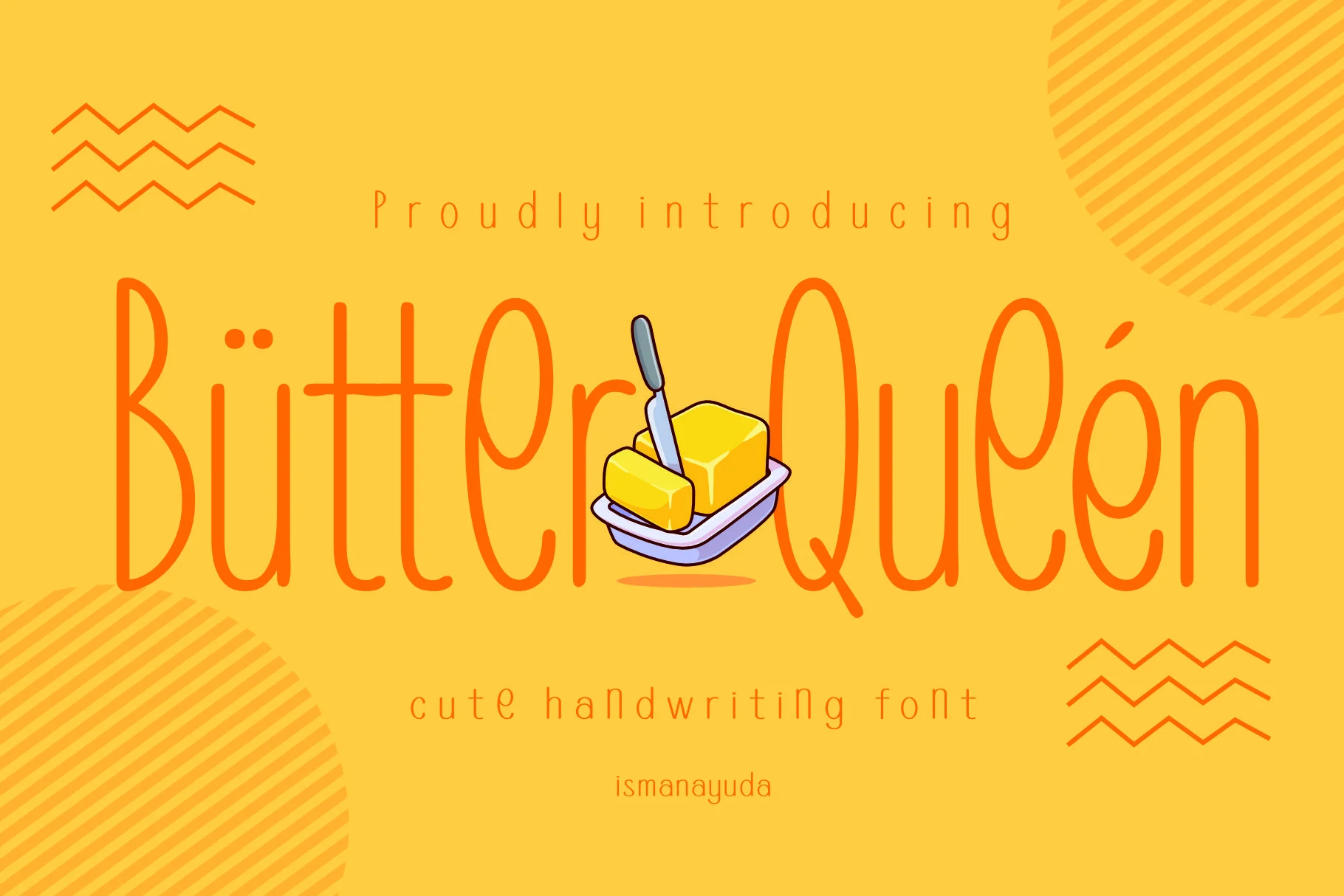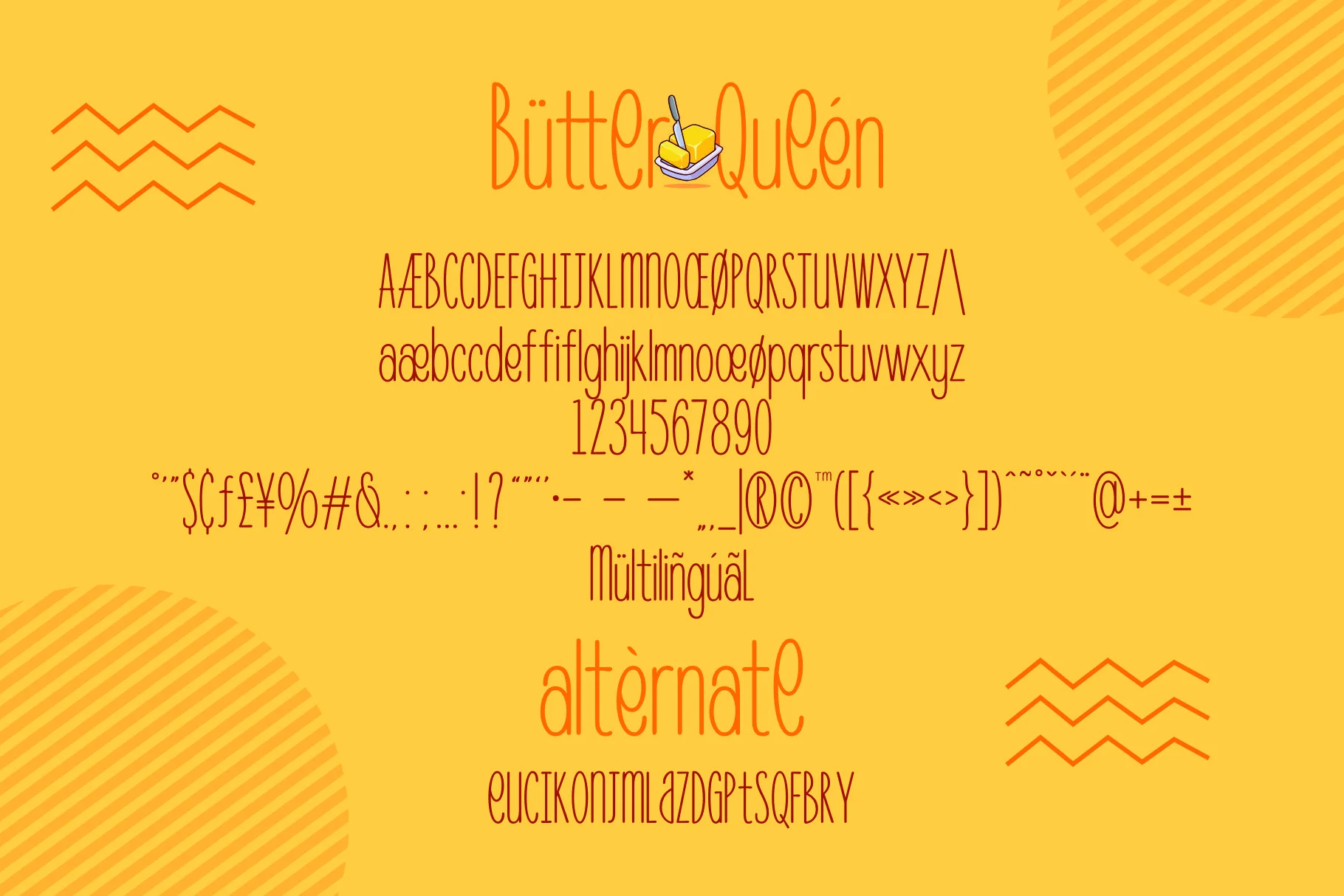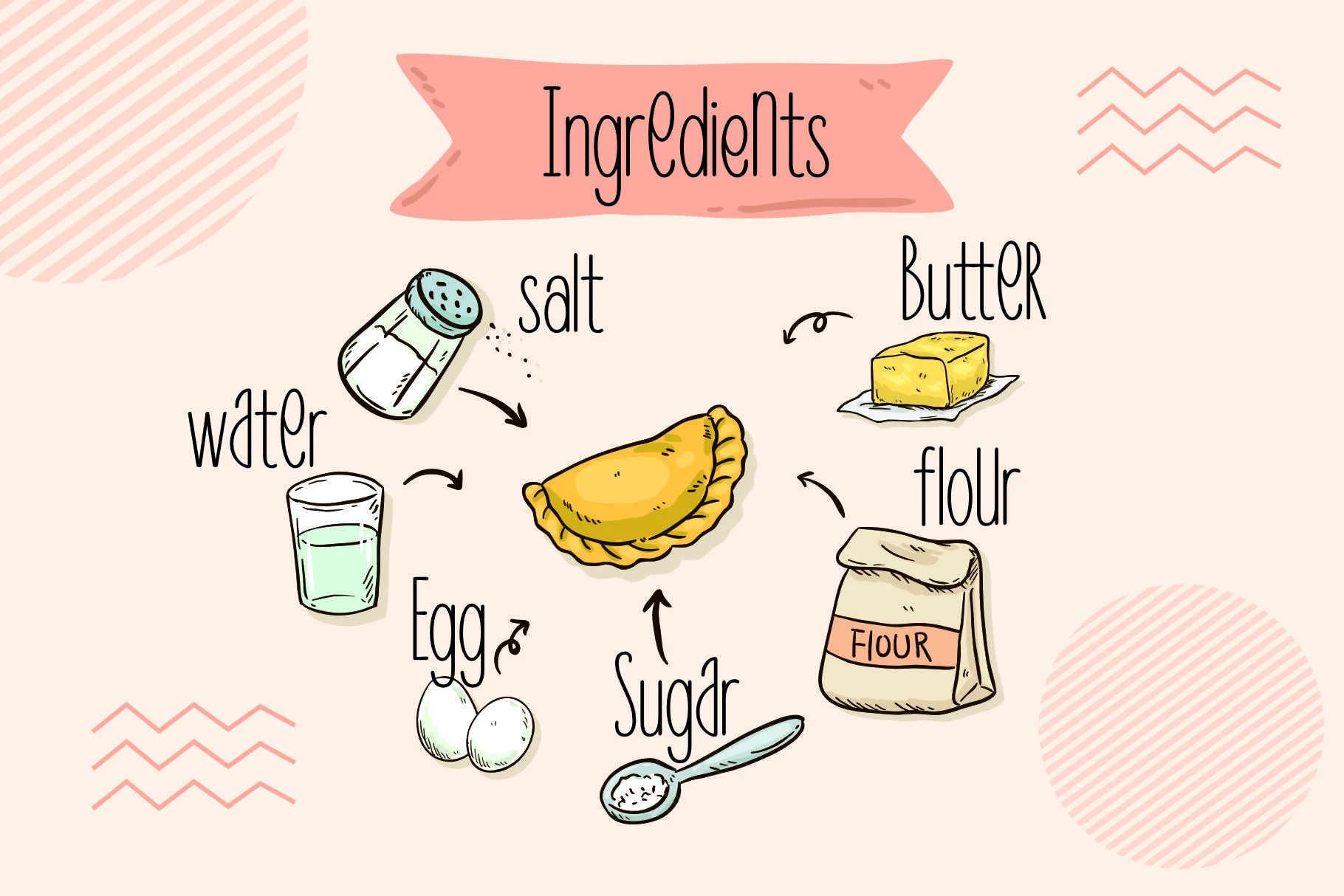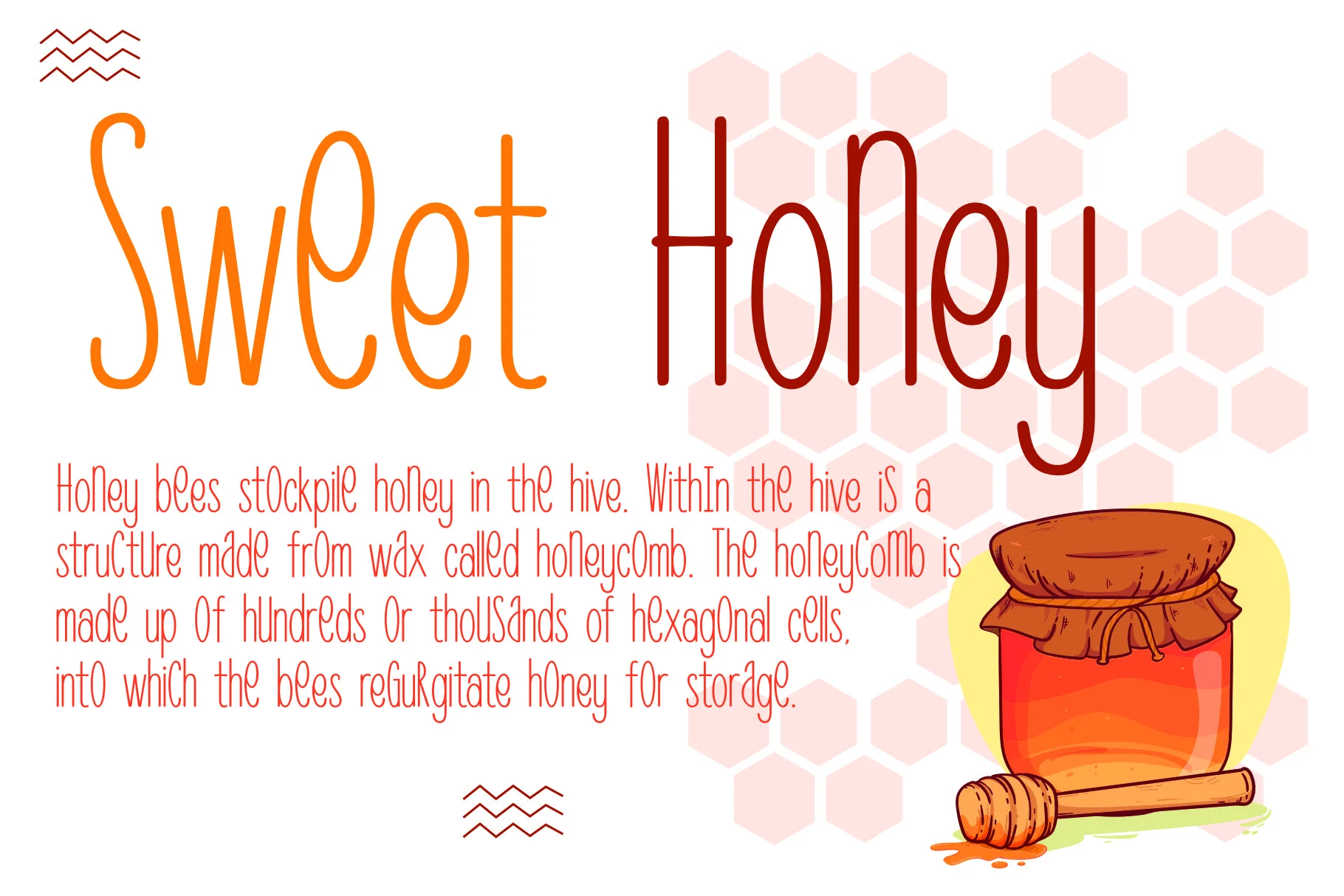
Butter Queen
Butter Queen is a charming, hand-drawn typeface characterized by its casual and playful aesthetic, designed to mimic a child's handwriting. The letterforms are tall, slightly irregular, and feature soft, rounded terminals that create a friendly and approachable feel. This style is particularly effective for creative projects that require an authentic, hand-created touch, such as food packaging,
The font's thin strokes and monolinear weight contribute to its clean and neat appearance, making it highly readable while maintaining a whimsical personality. Its design makes it a popular choice for adding a "sweet" or "jovial" touch to headers, posters, and merchandise like t-shirts.